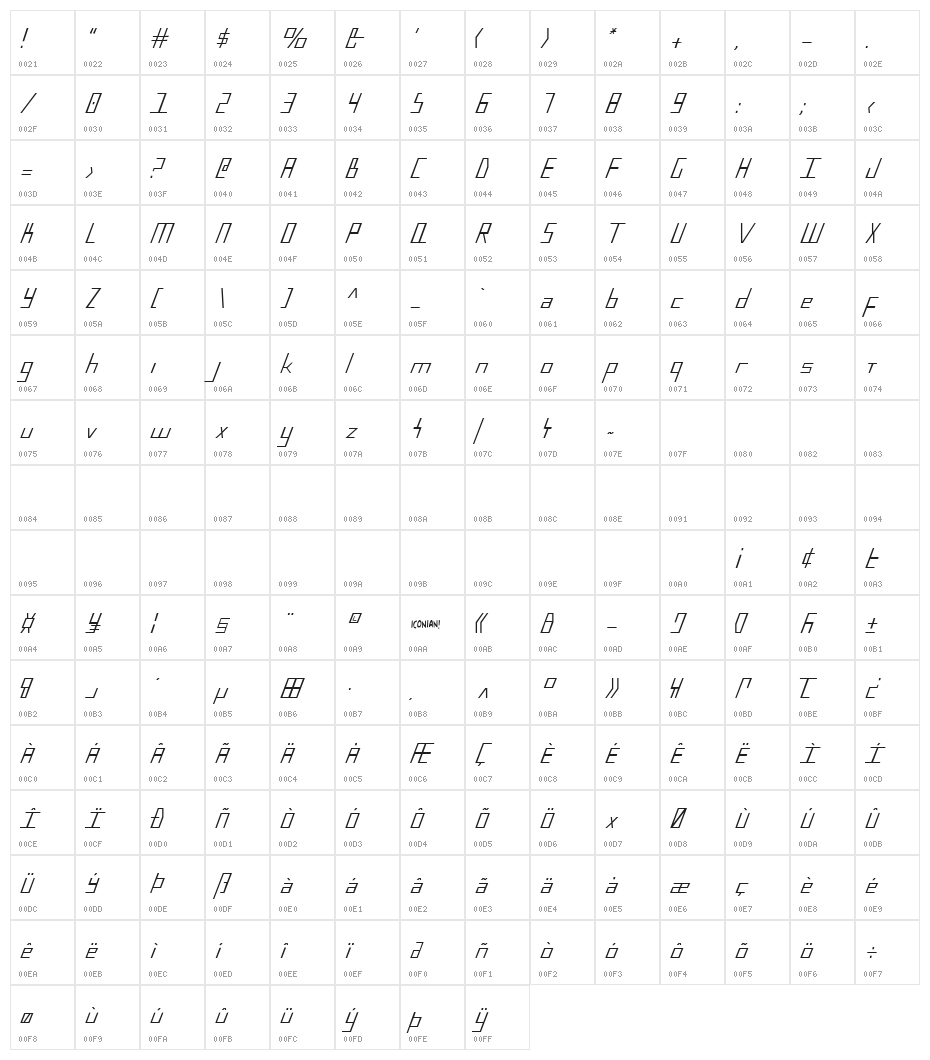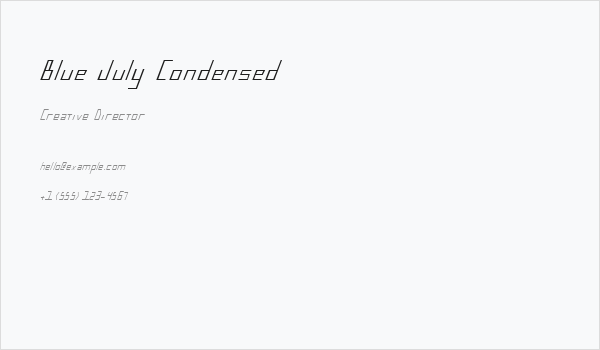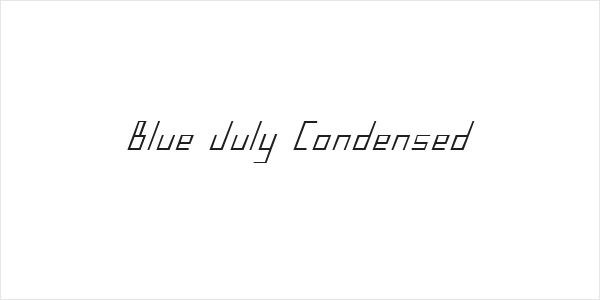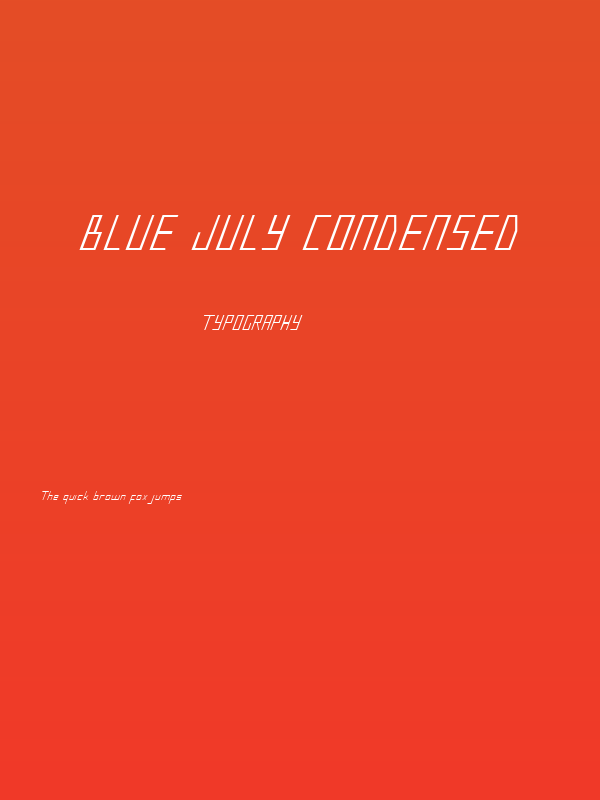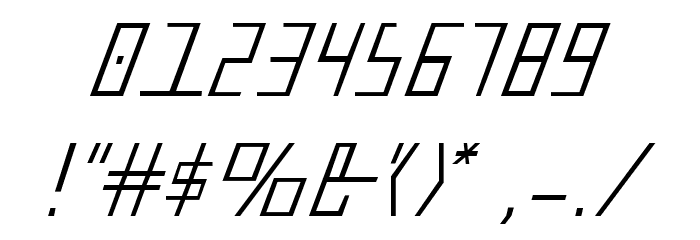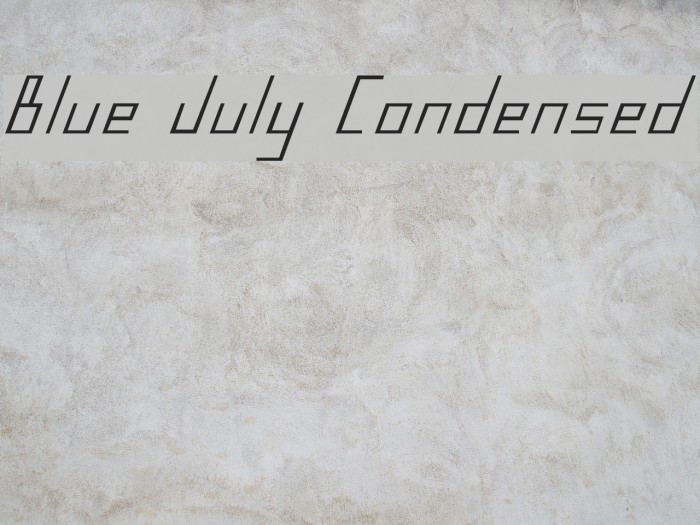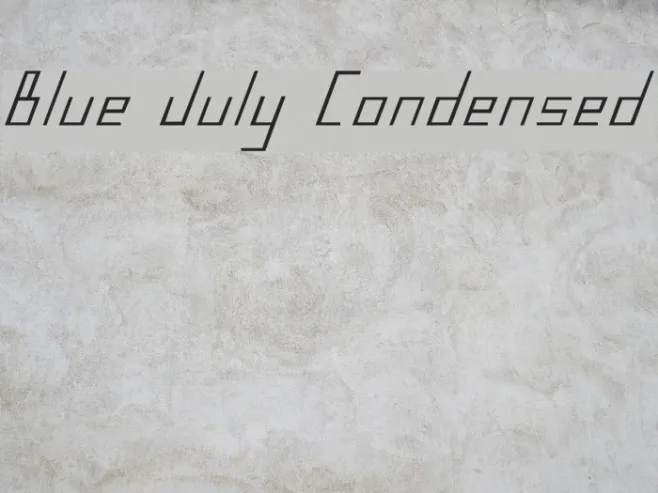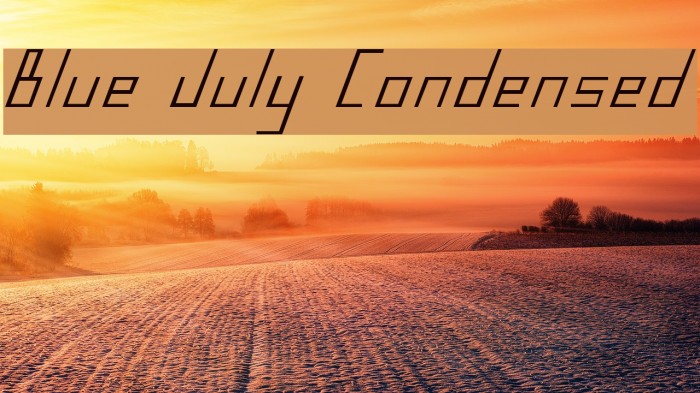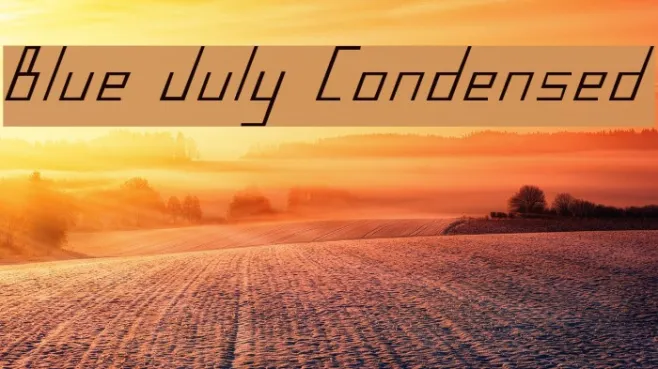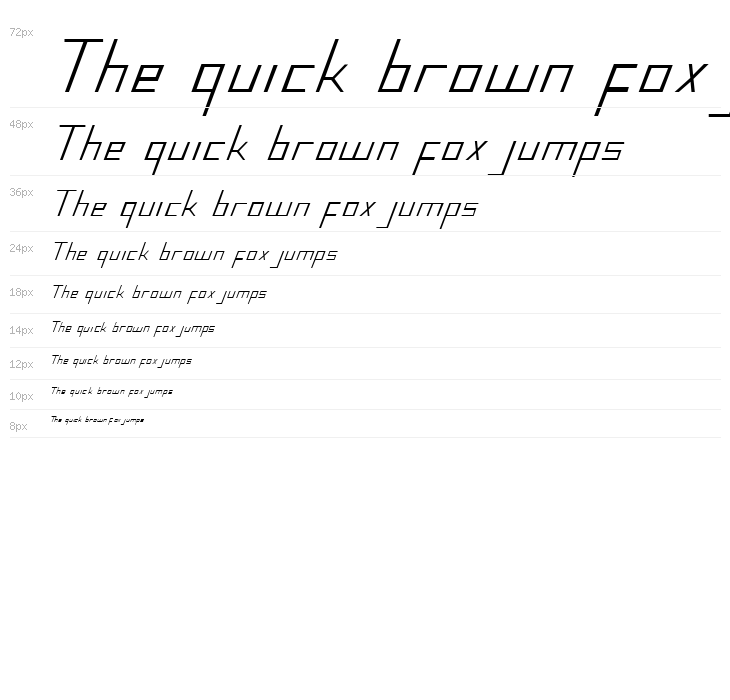
Blue July Condensed Font
Blue July Condensed Description
This font features a modern, geometric design with a condensed structure. The characters are angular and slightly slanted, giving a dynamic and futuristic appearance. The uppercase and lowercase letters maintain a consistent style, with sharp edges and clean lines. Numbers and special characters follow the same design principles, ensuring uniformity across all glyphs. The font's condensed nature makes it suitable for space-saving applications while maintaining readability.
| Proposed Projects | Ideal for technology branding, futuristic posters, and modern web design. |